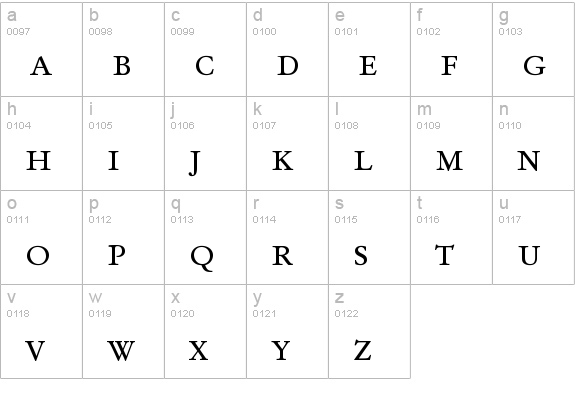
Stempel Garamond Small Caps & Oldstyle Figures font is a timeless and elegant typeface that exudes sophistication and class. Featuring delicate serifs and graceful curves, this font is perfect for adding a touch of refinement to any project. The small caps and oldstyle figures add a unique flair to your designs, making them stand out with a touch of vintage charm. What's even better is that Stempel Garamond Small Caps & Oldstyle Figures font is available for free download at FontsMarket.com. Whether you're working on a print project, web design, or any other creative endeavor, this font is sure to elevate your work to the next level. Don't miss out on the opportunity to enhance your designs with this exquisite typeface, now freely accessible for all design enthusiasts.